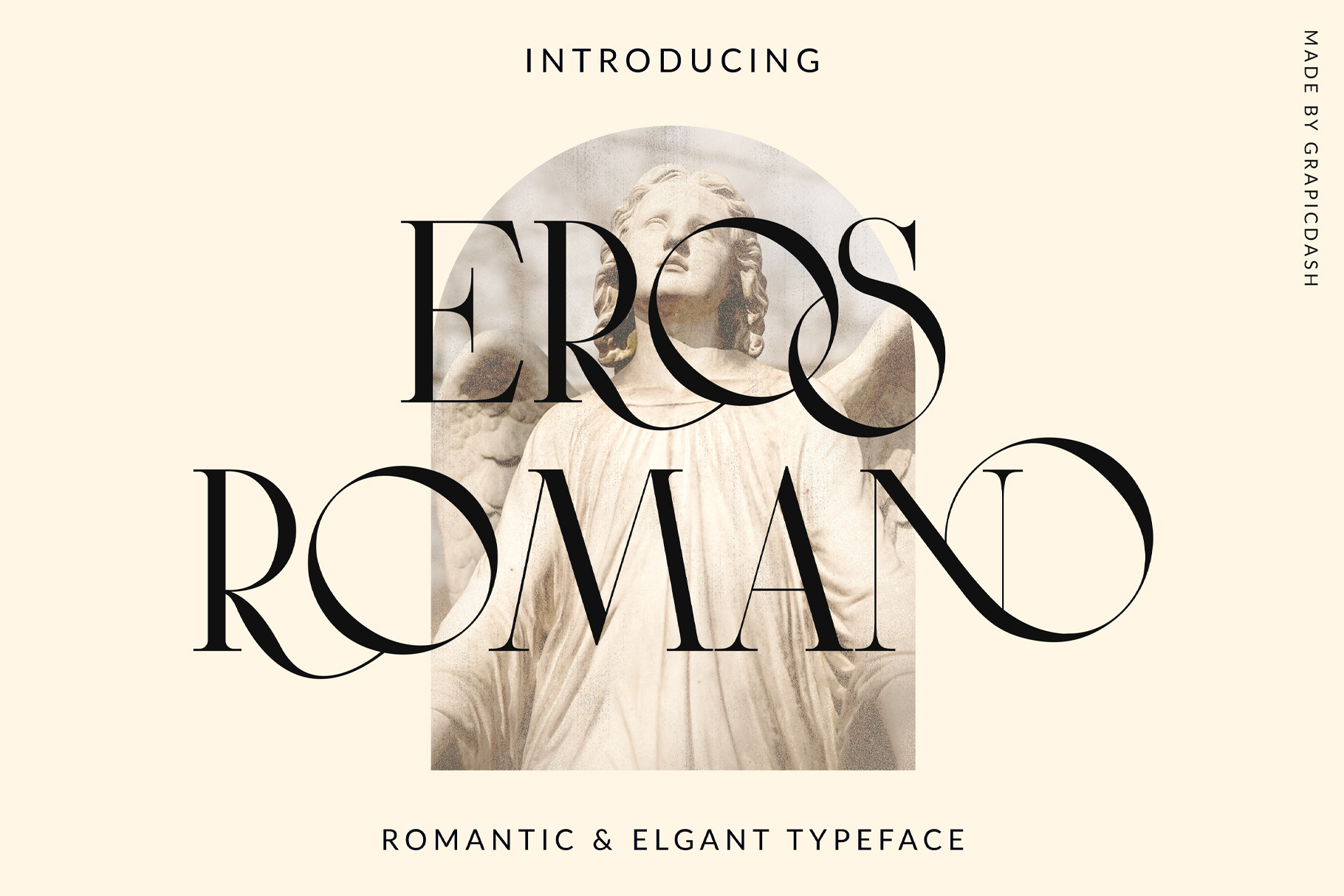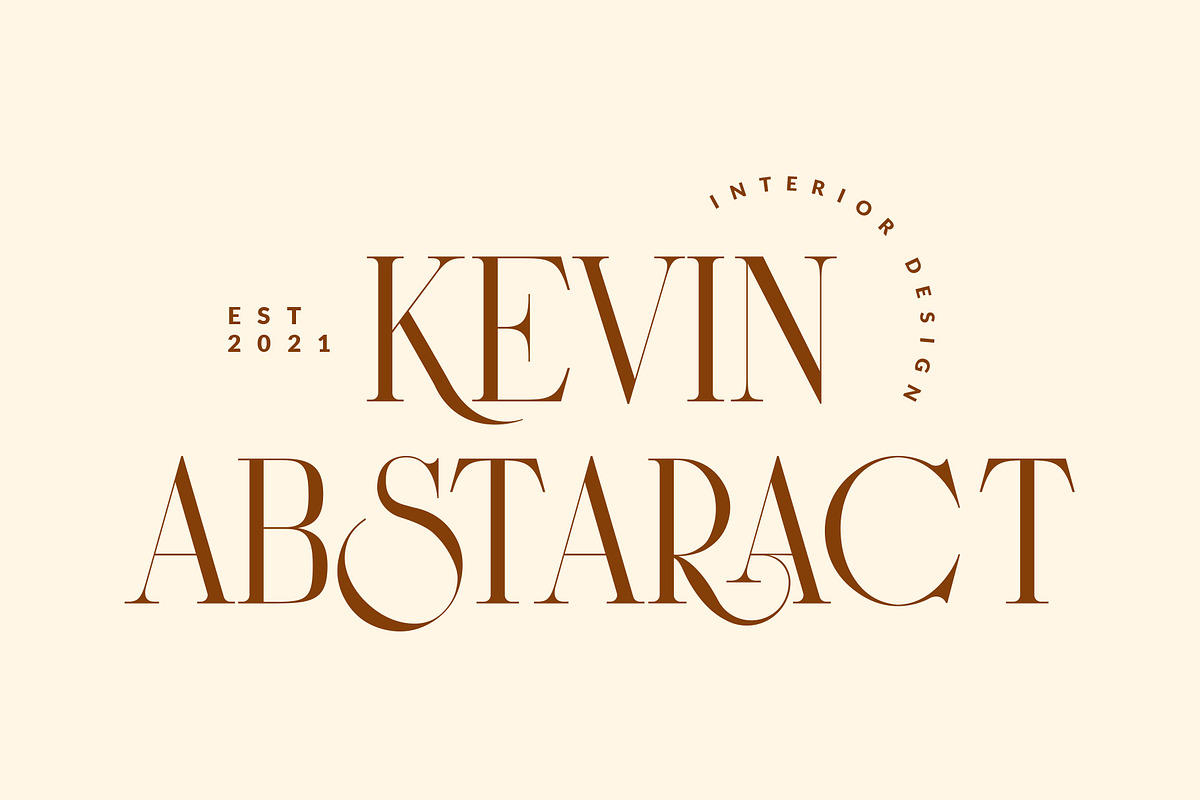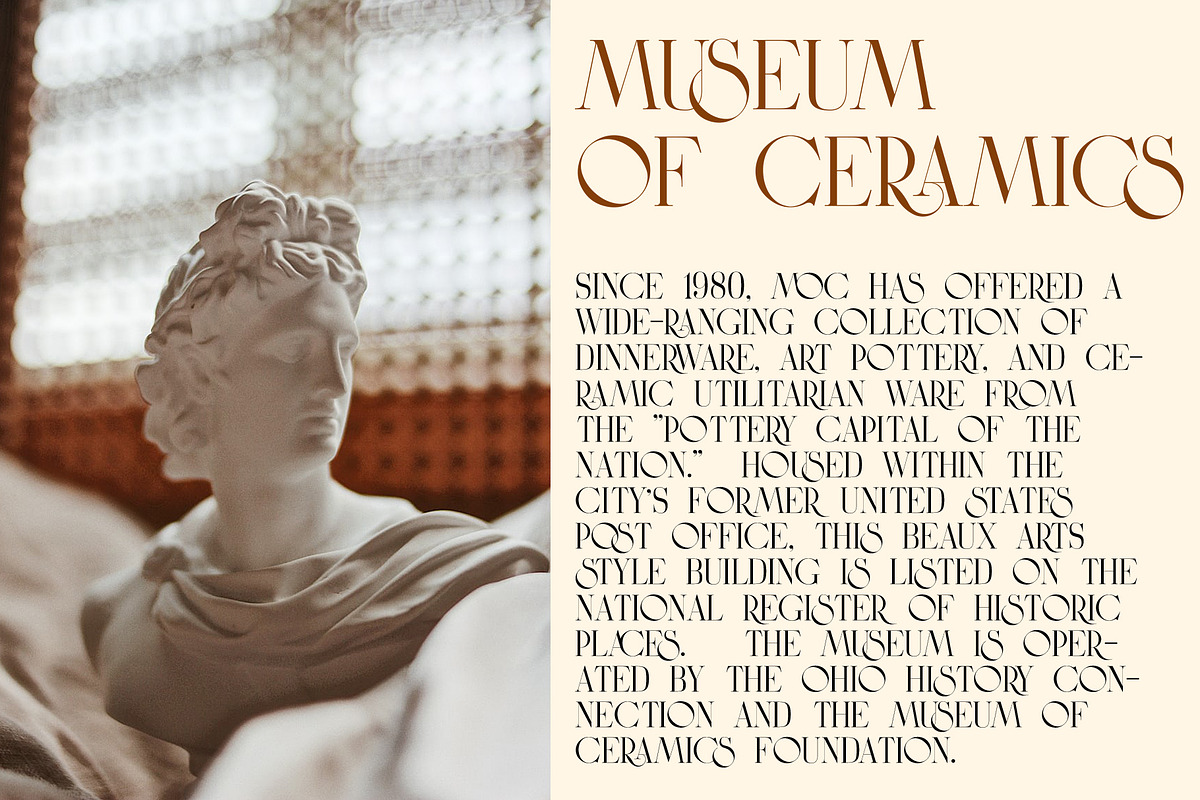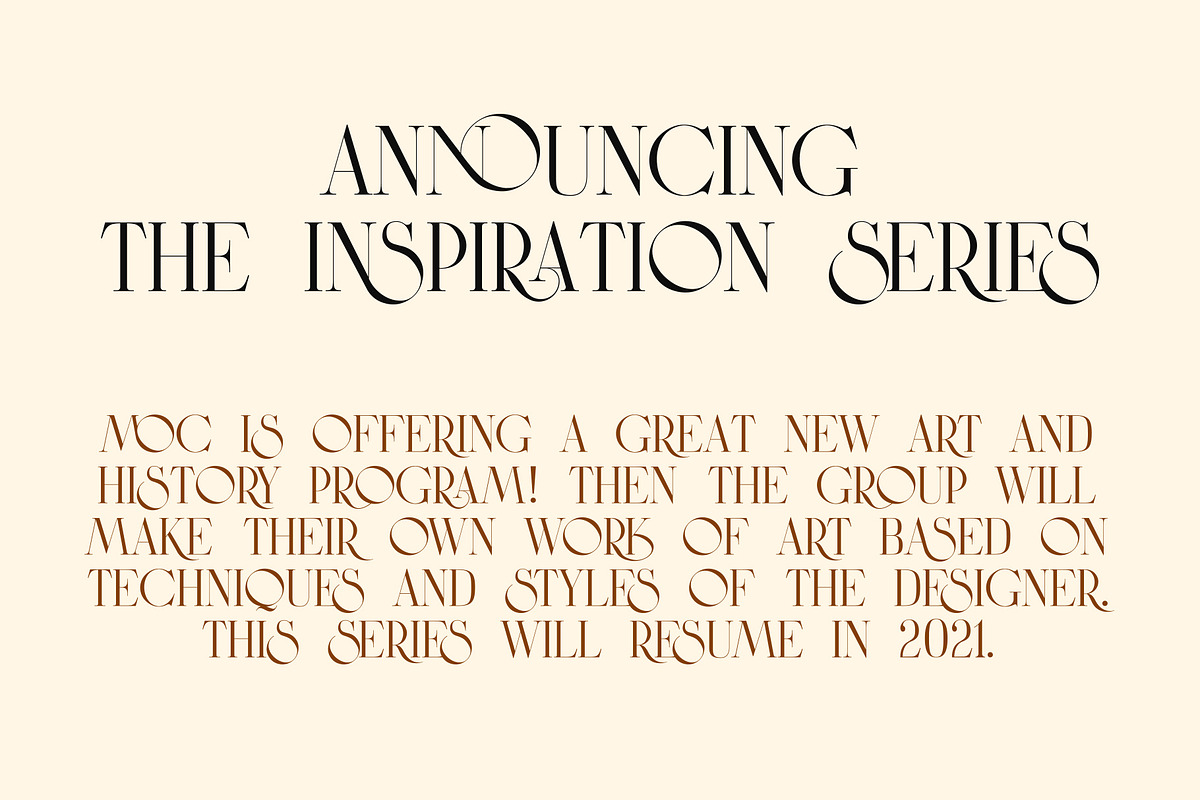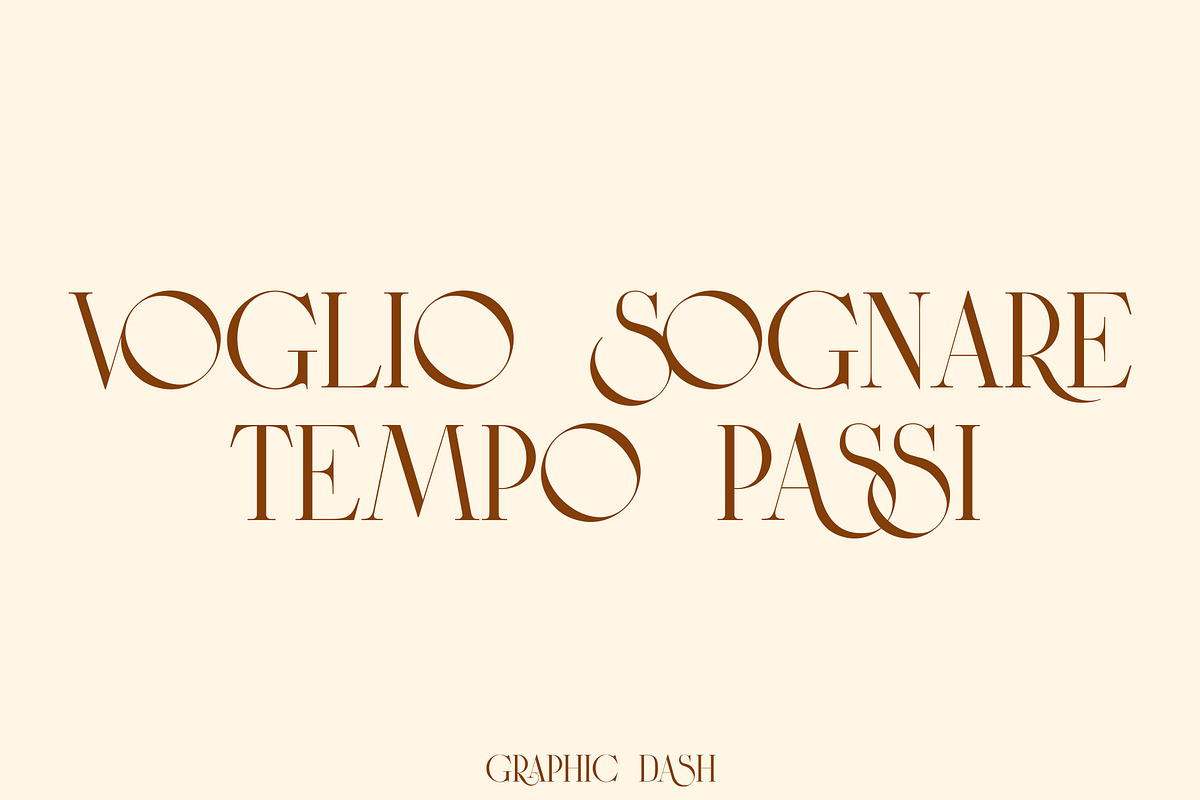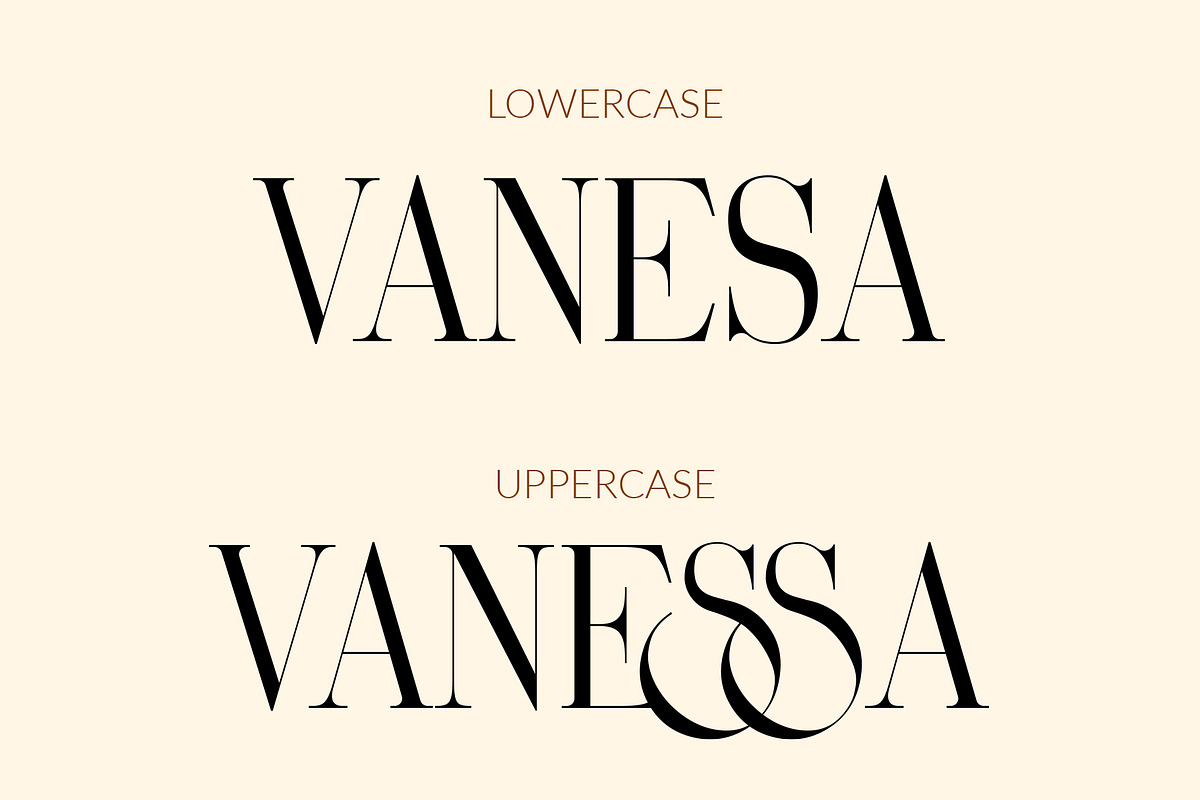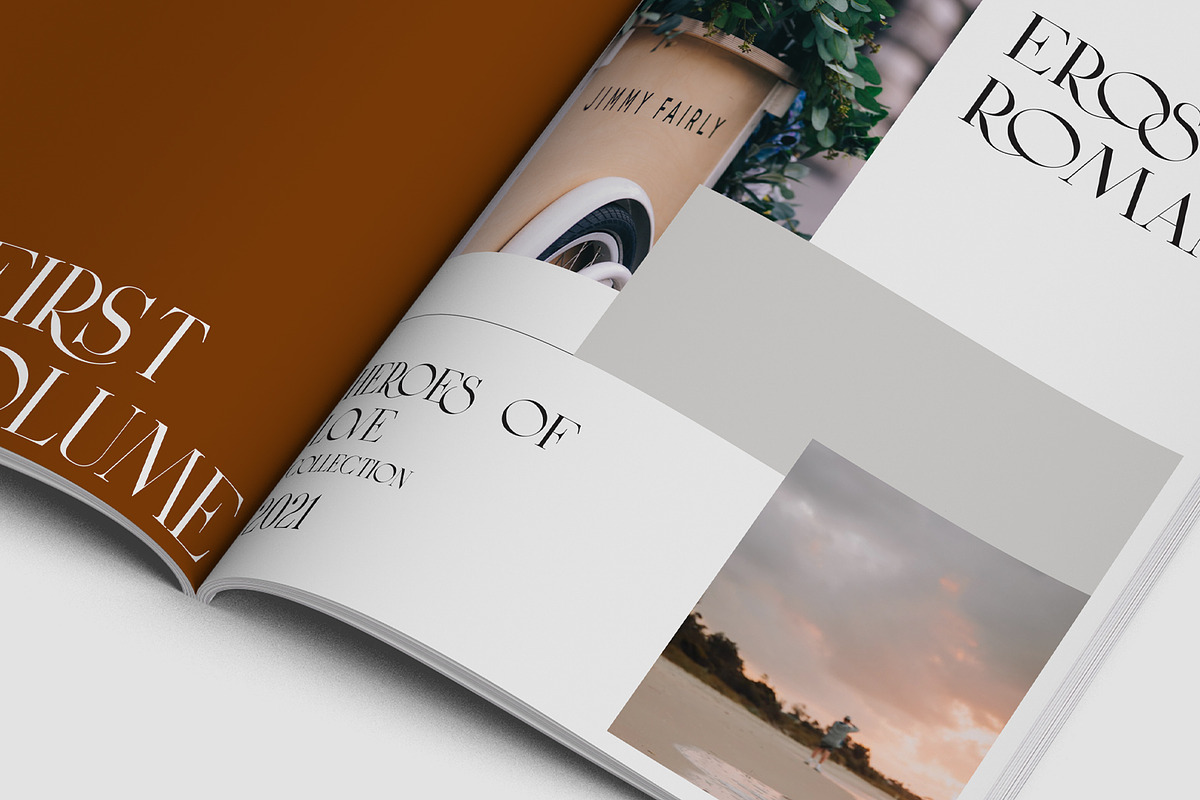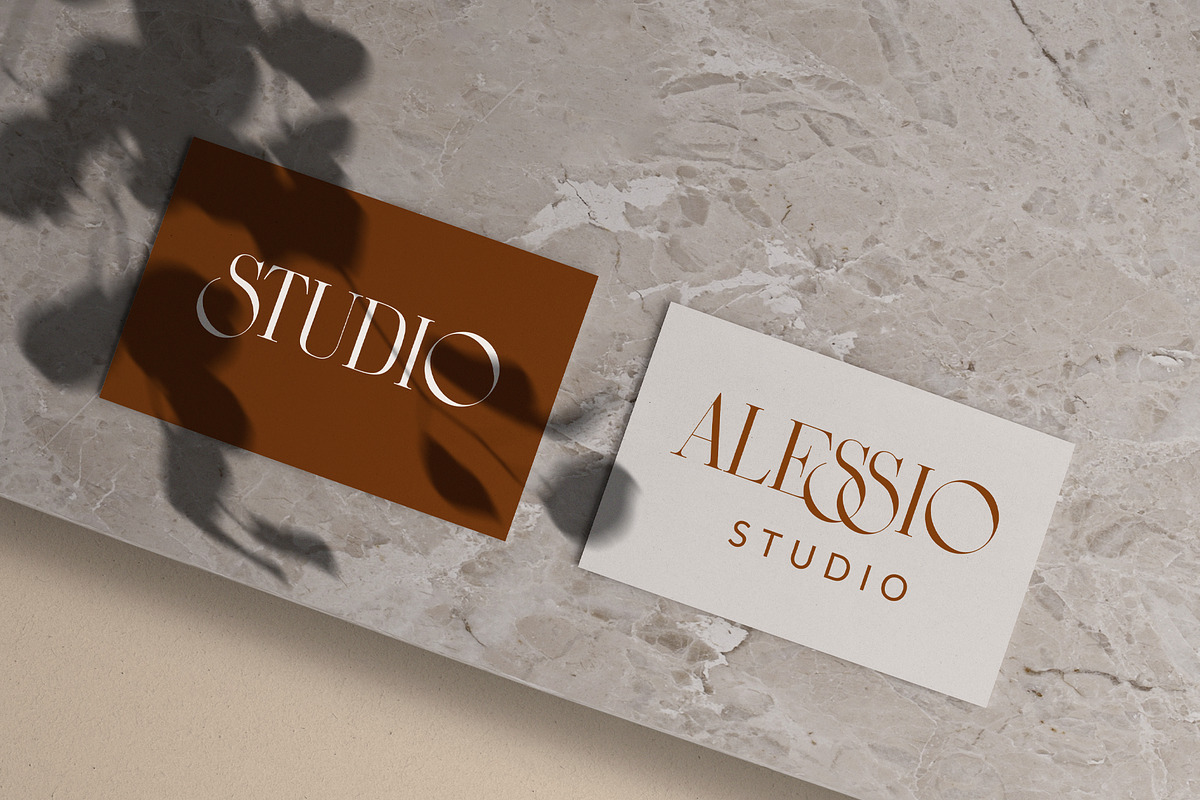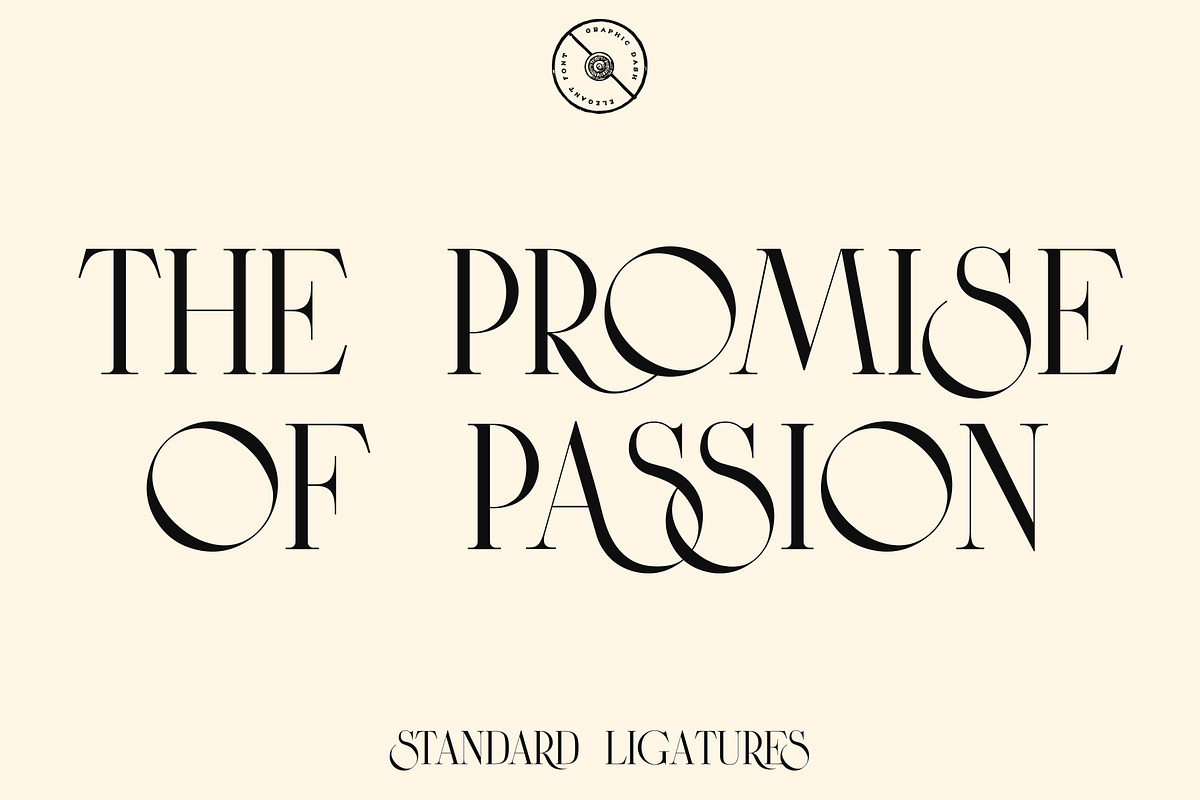
Eros Romano - Elegant Font
Eros Romano is a versatile, modern, and elegant font. It has a unique style with standard curvy ligatures.
All gorgeous ligatures in these versions turn on automatically when using Caps Lock and you don't need any special programs to use them.
Create unique & beautiful logotype, use it as an elegant solution for your next magazine layout, or choose Eros Romano for any graphics that require a sleek look with an elegant flair.